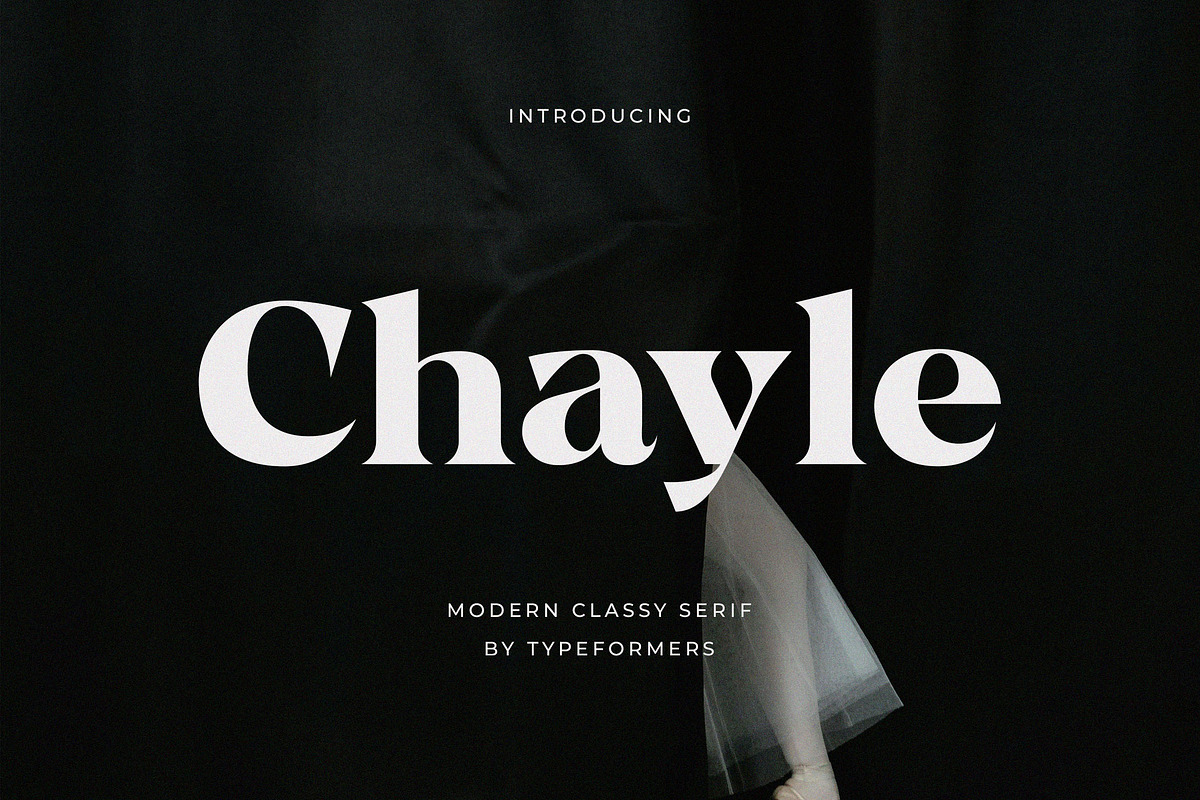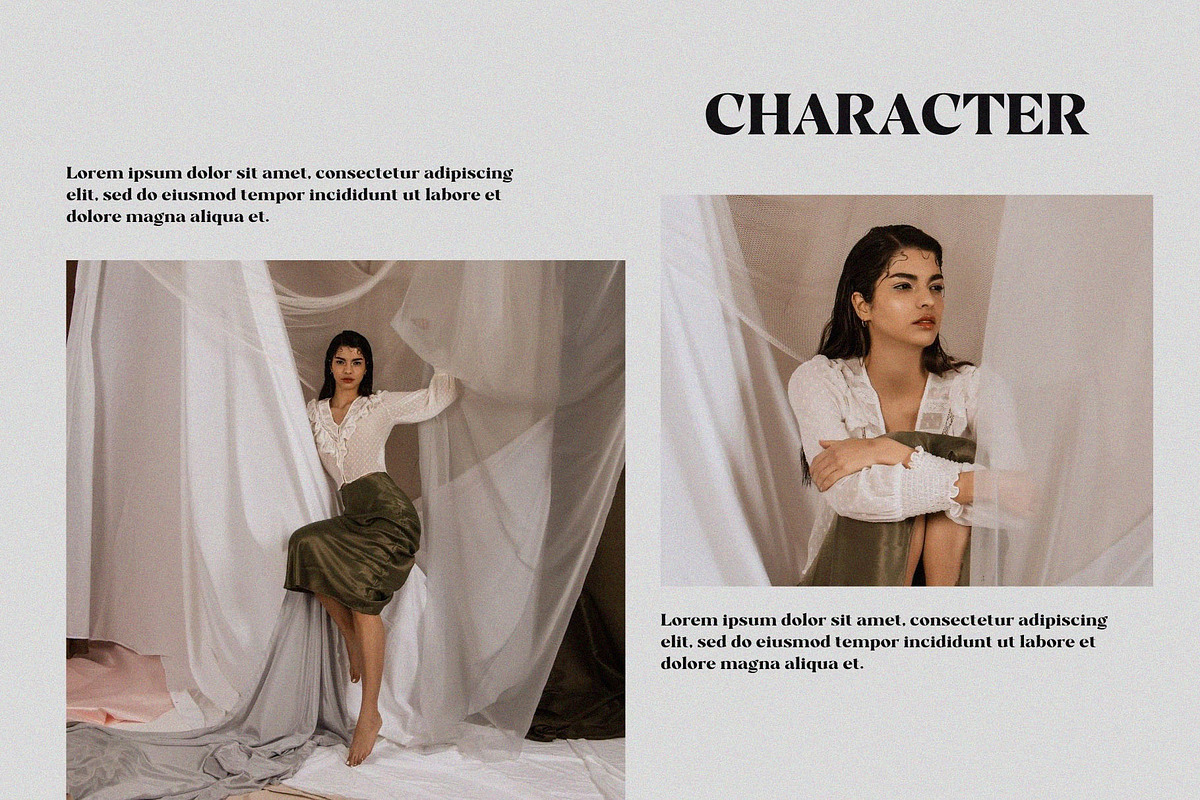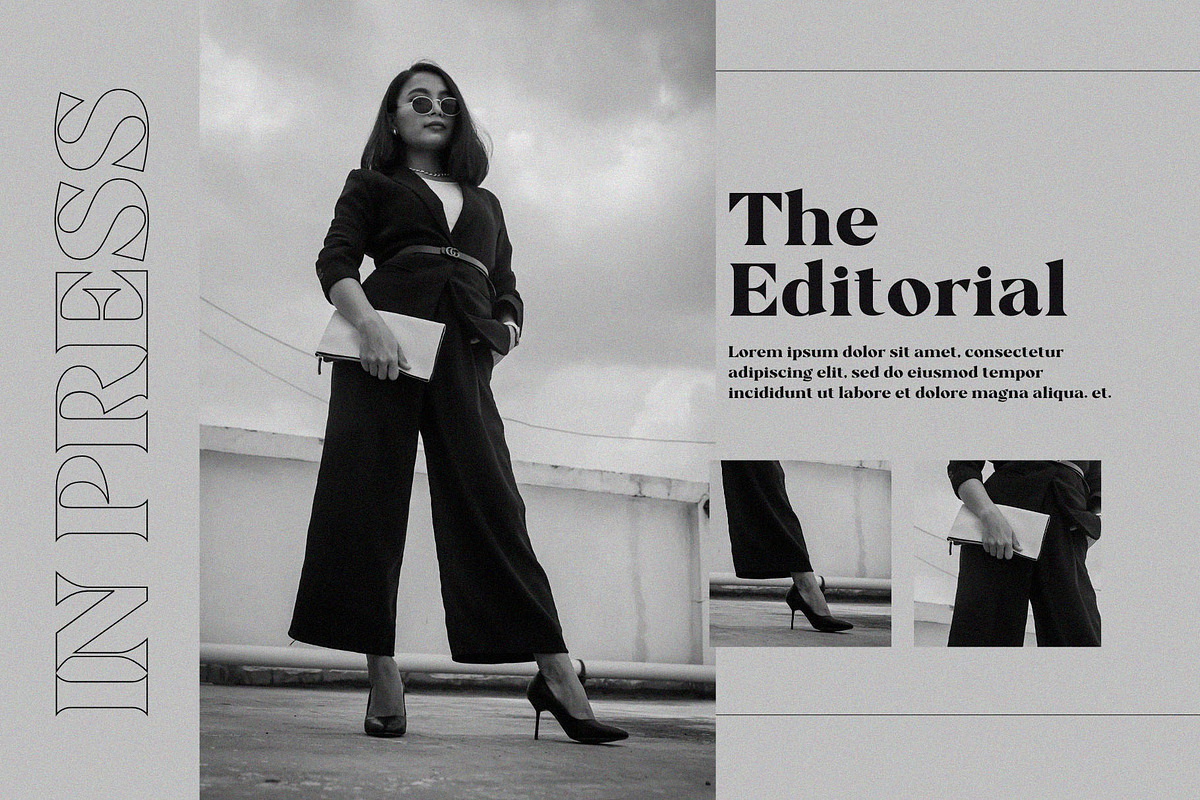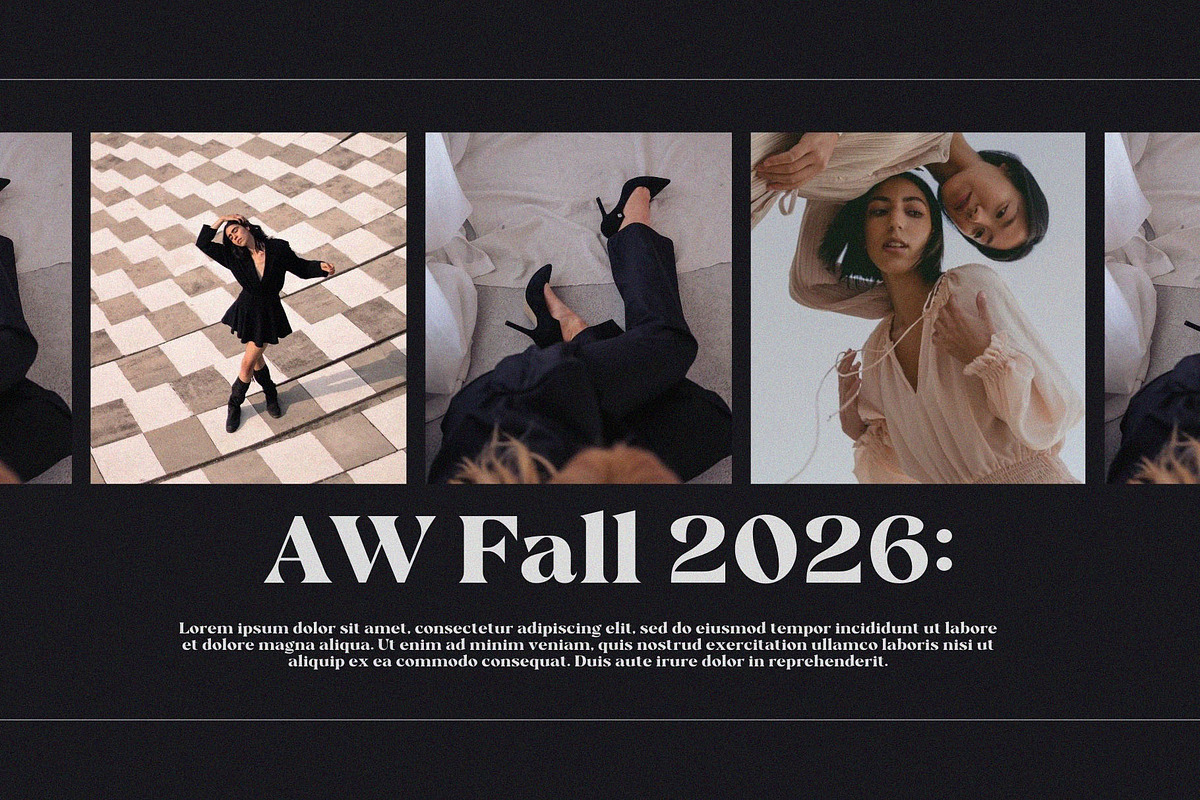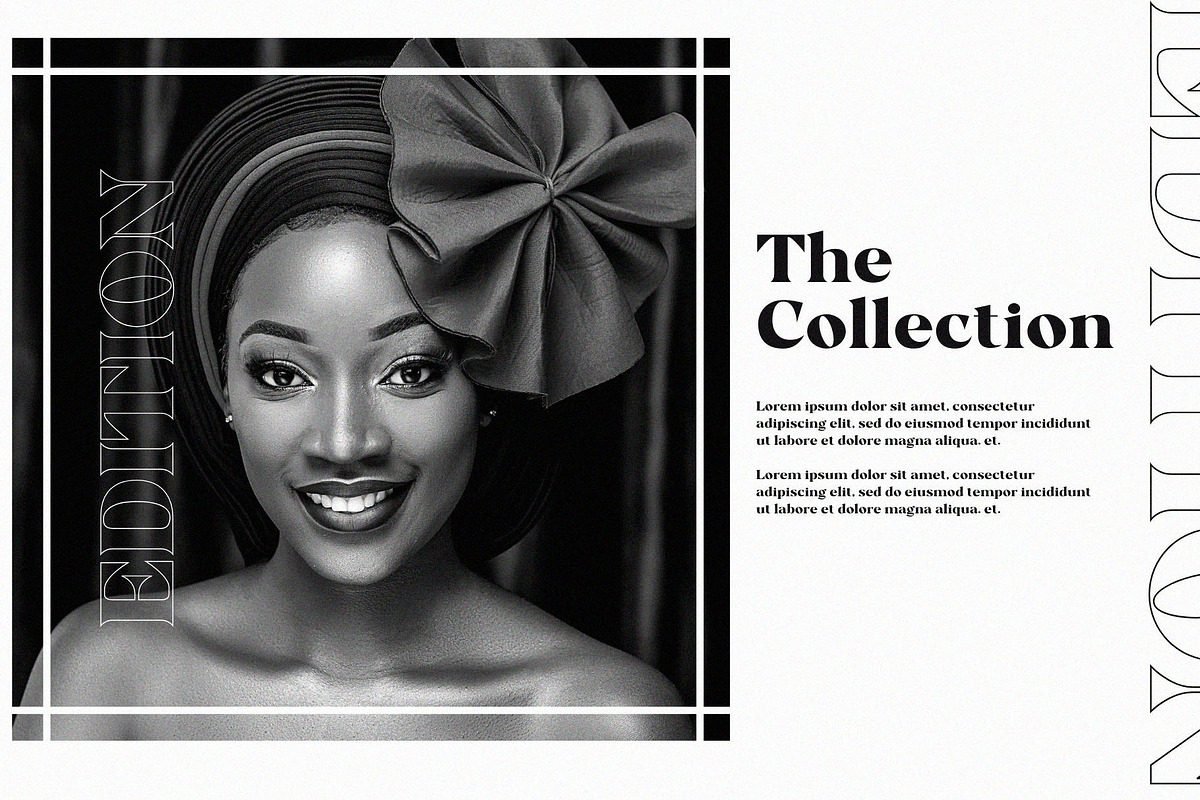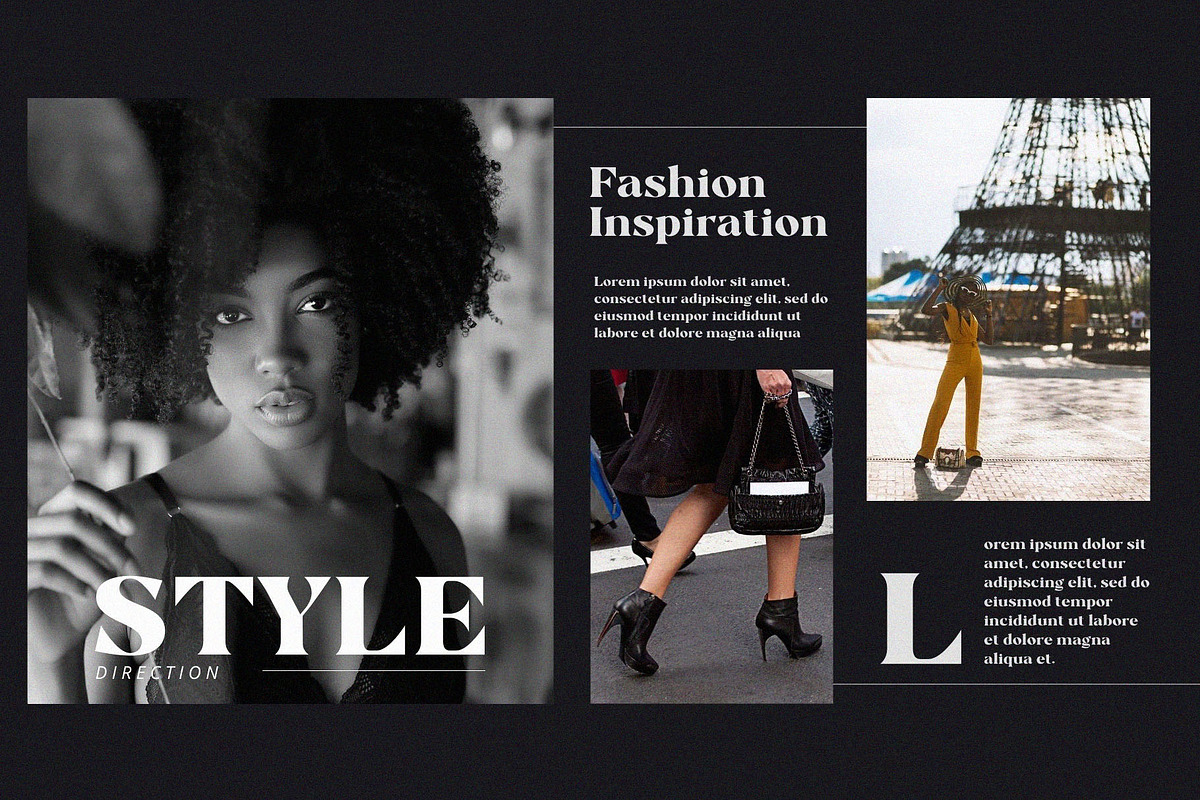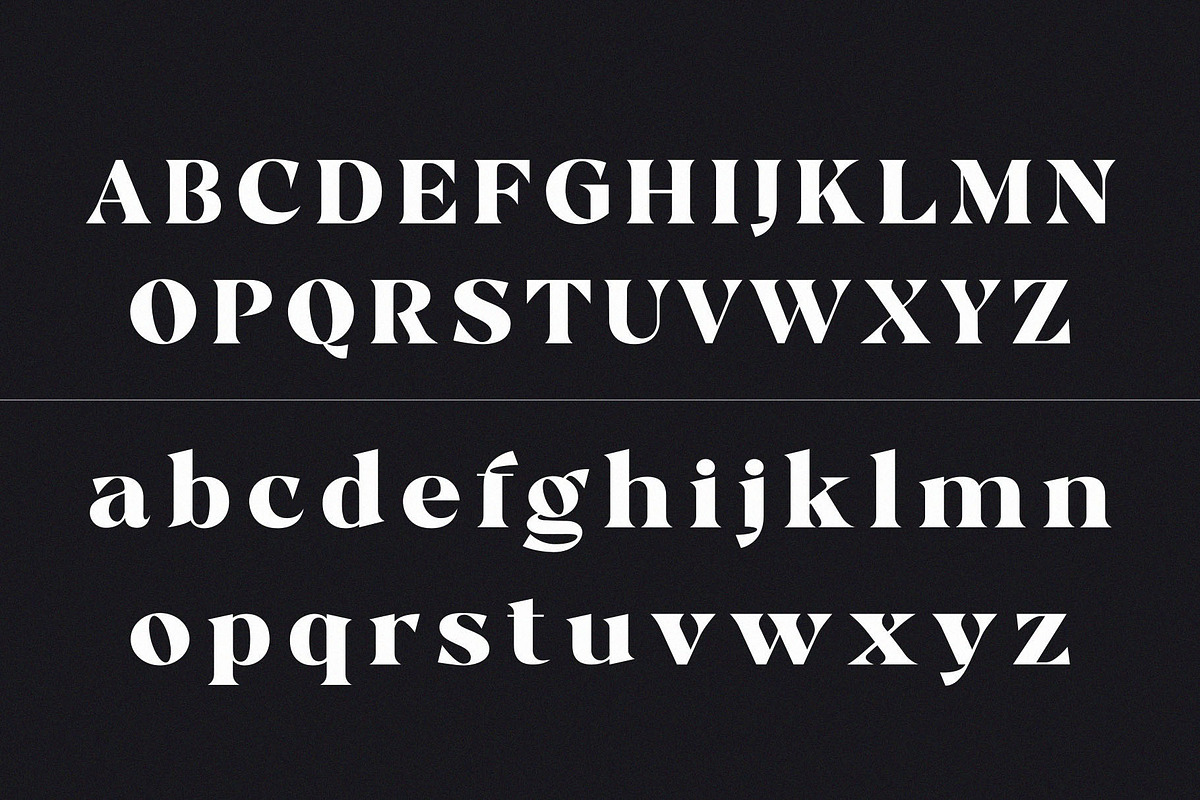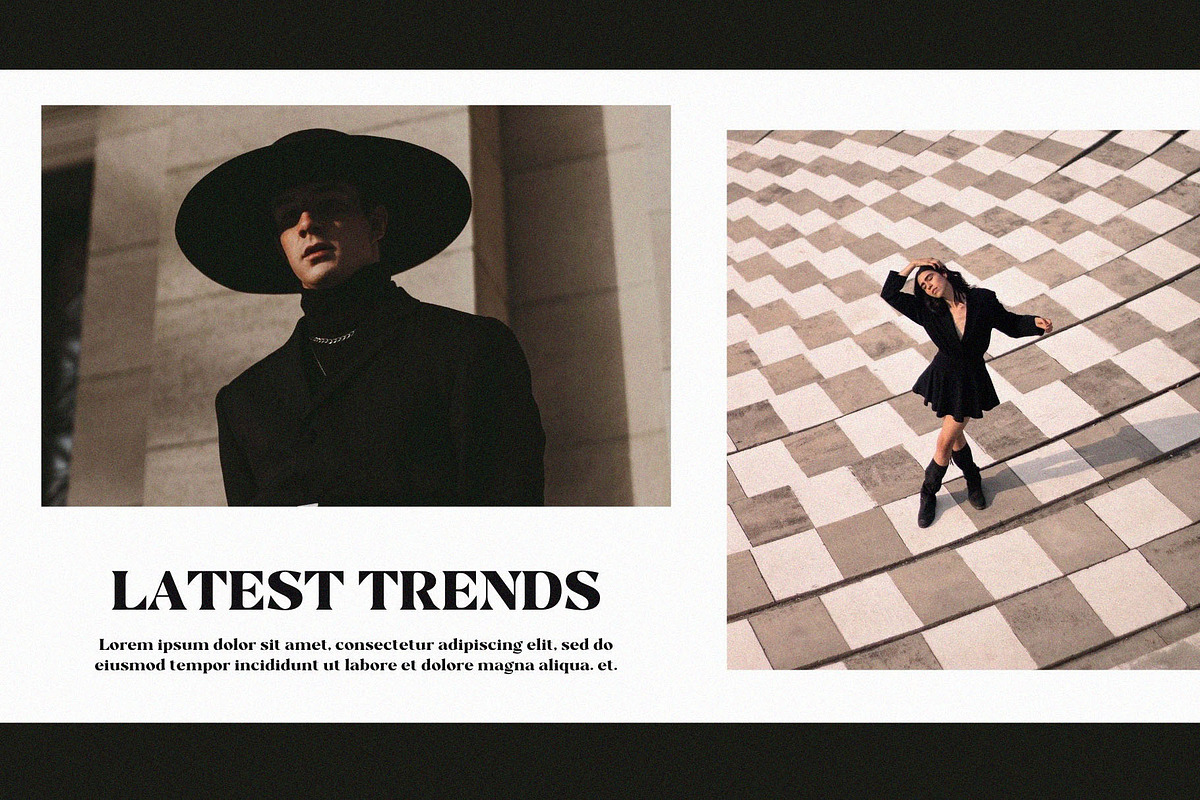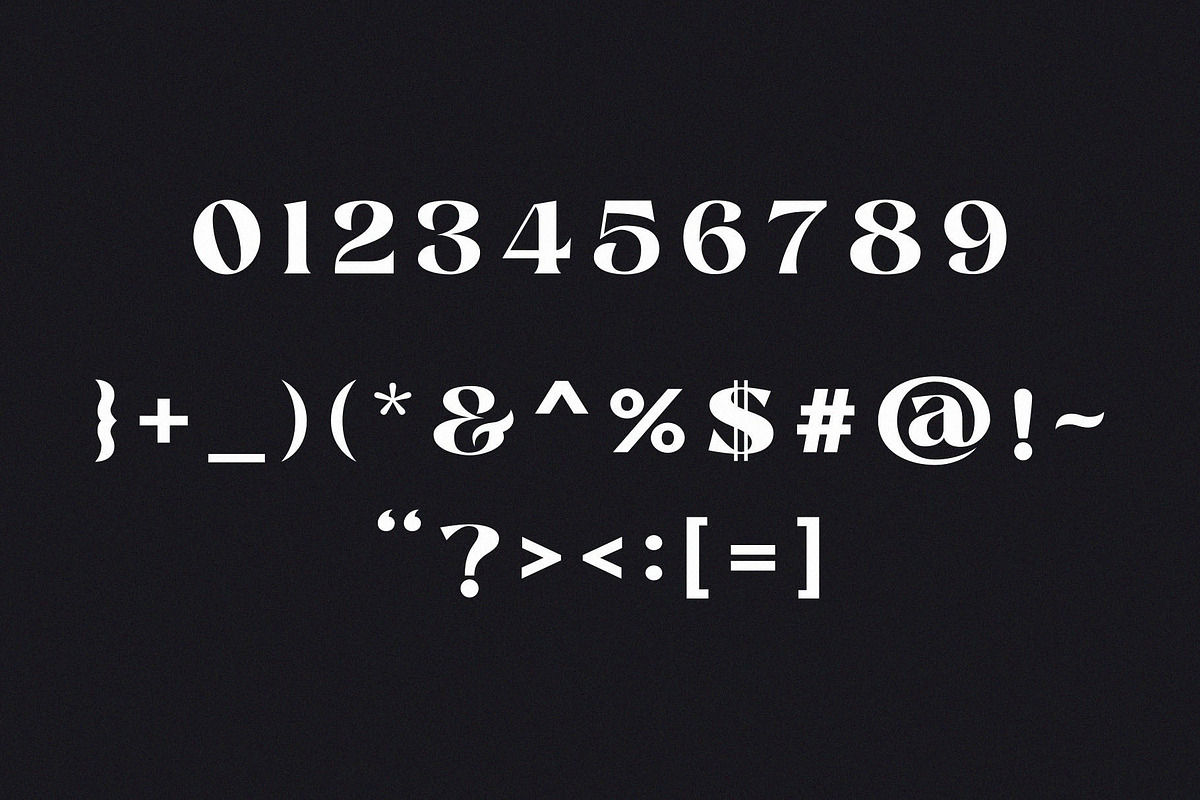
Chayle - Modern Classy Serif
Introducing Chayle - Modern Classy Serif. Chayle is a modern and simple font, best used as a display for headings, logos, branding, magazines, product packaging and invitations.